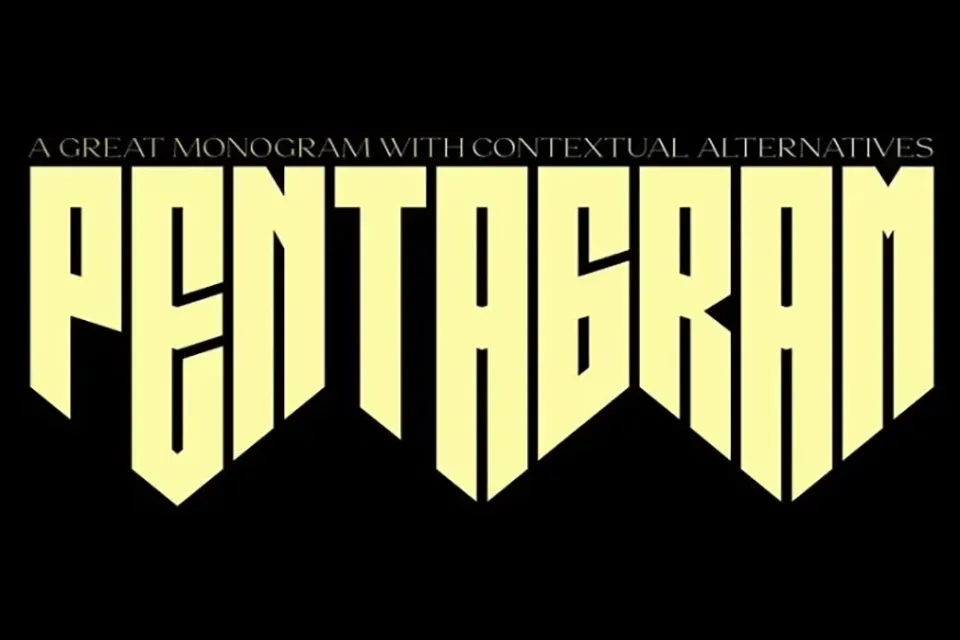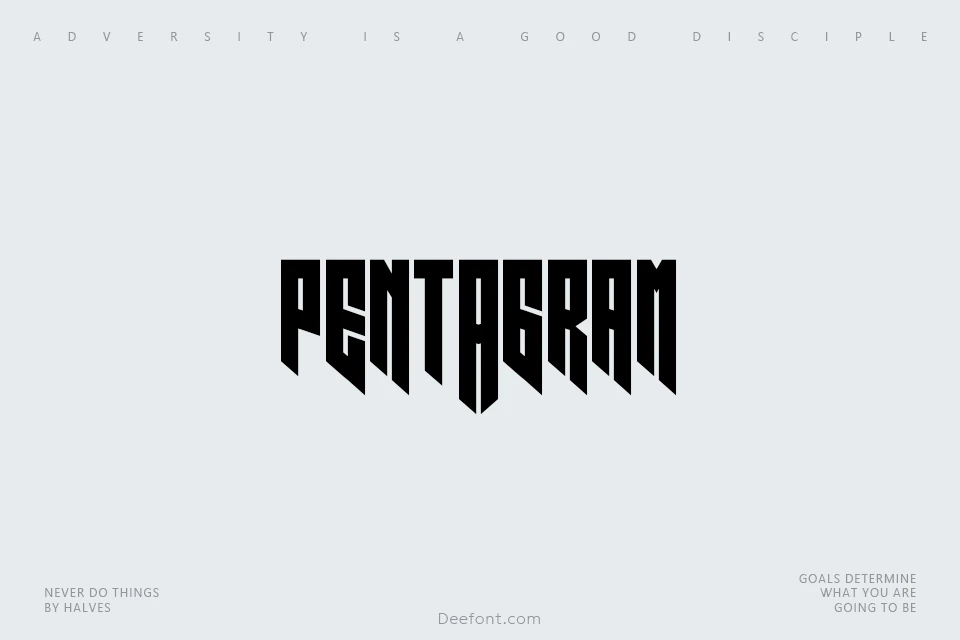
Pentagram Font
Pentagram Font is a bold and striking display typeface designed to make a powerful visual impact. Featuring sharp, angular letterforms and a geometric aesthetic, this font exudes strength and modernity, making it perfect for logos, posters, branding, and monograms. Its unique design includes contextual alternatives that add versatility and creative flair to your projects. Pentagram Font’s commanding presence ensures it stands out in any application, whether used for bold headlines or intricate designs. Ideal for projects that demand attention and originality, this typeface brings a dynamic and edgy touch to your text, elevating your designs with style and confidence.